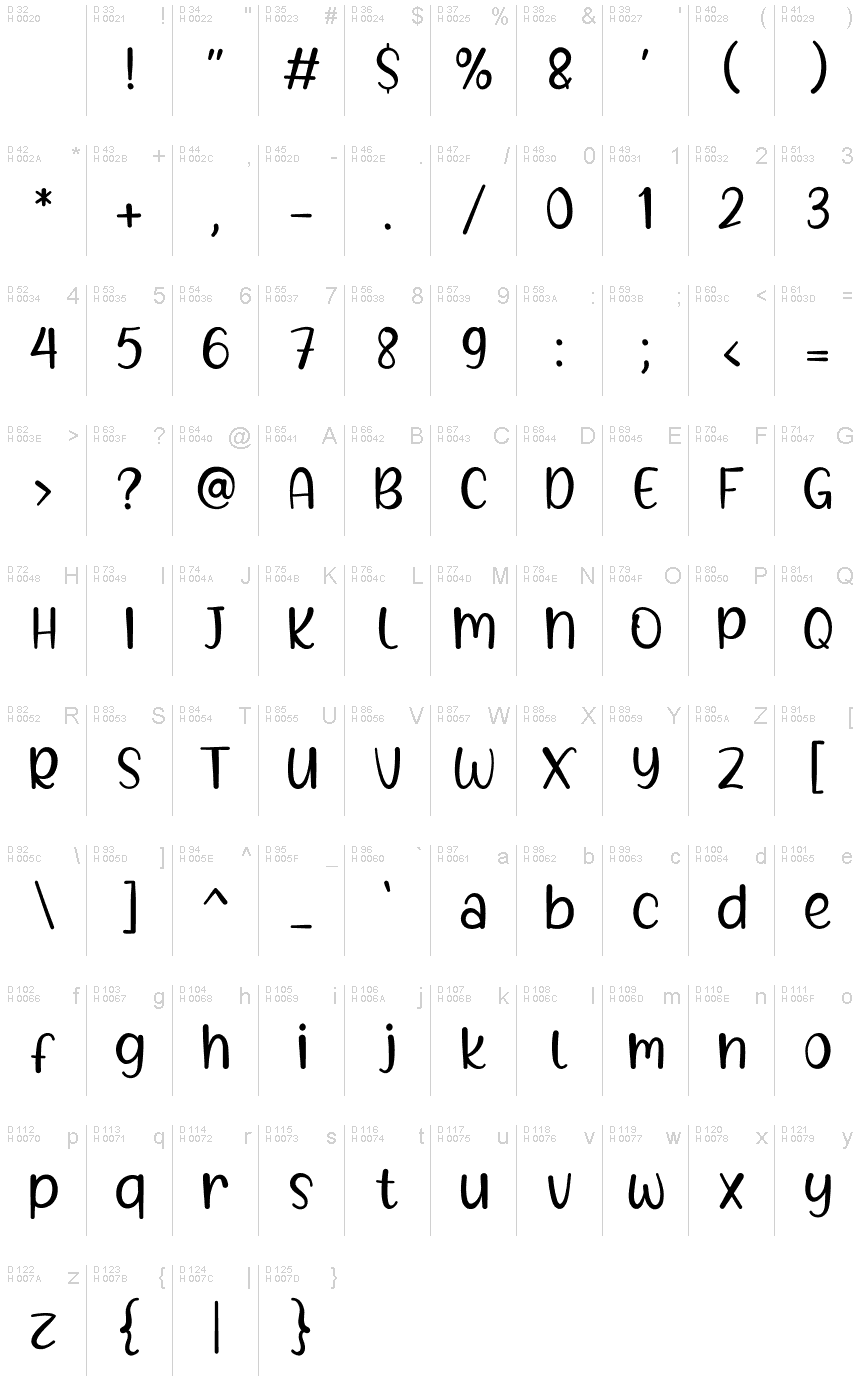
Little Cookies
Little Cookies, designed by Erik Studio, is a delightful handwritten font that adds a touch of whimsy to any project. With its semi-light weight, this charming typeface brings a sense of playfulness and warmth to invitations, greeting cards, and children's book covers. Its organic strokes and unique character shapes make it perfect for crafting cute logos for bakeries or confectionery shops. Whether you're designing packaging for homemade treats or creating an adorable website for a kids' party business, Little Cookies will infuse your projects with sweetness and creativity.